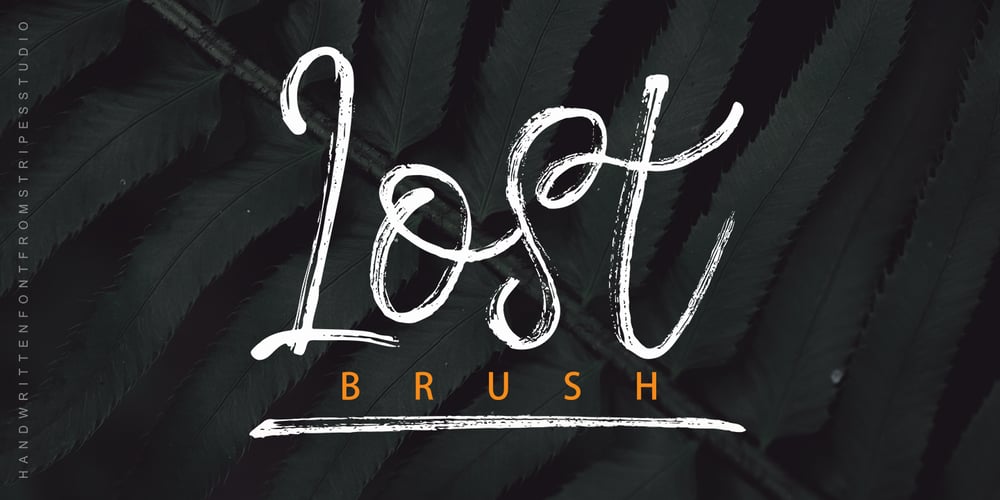
Lost Brush Font Family was designed by Yur Lis and published by Stripes Studio. Lost Brush contains 2 styles and family package options. Lost Brush is a new, interesting brushed font, containing ligatures and swash. It is perfect for projects like brands, logos, product packaging, posters, invitations, greeting cards, news, blogs, and everything needing personal charm.